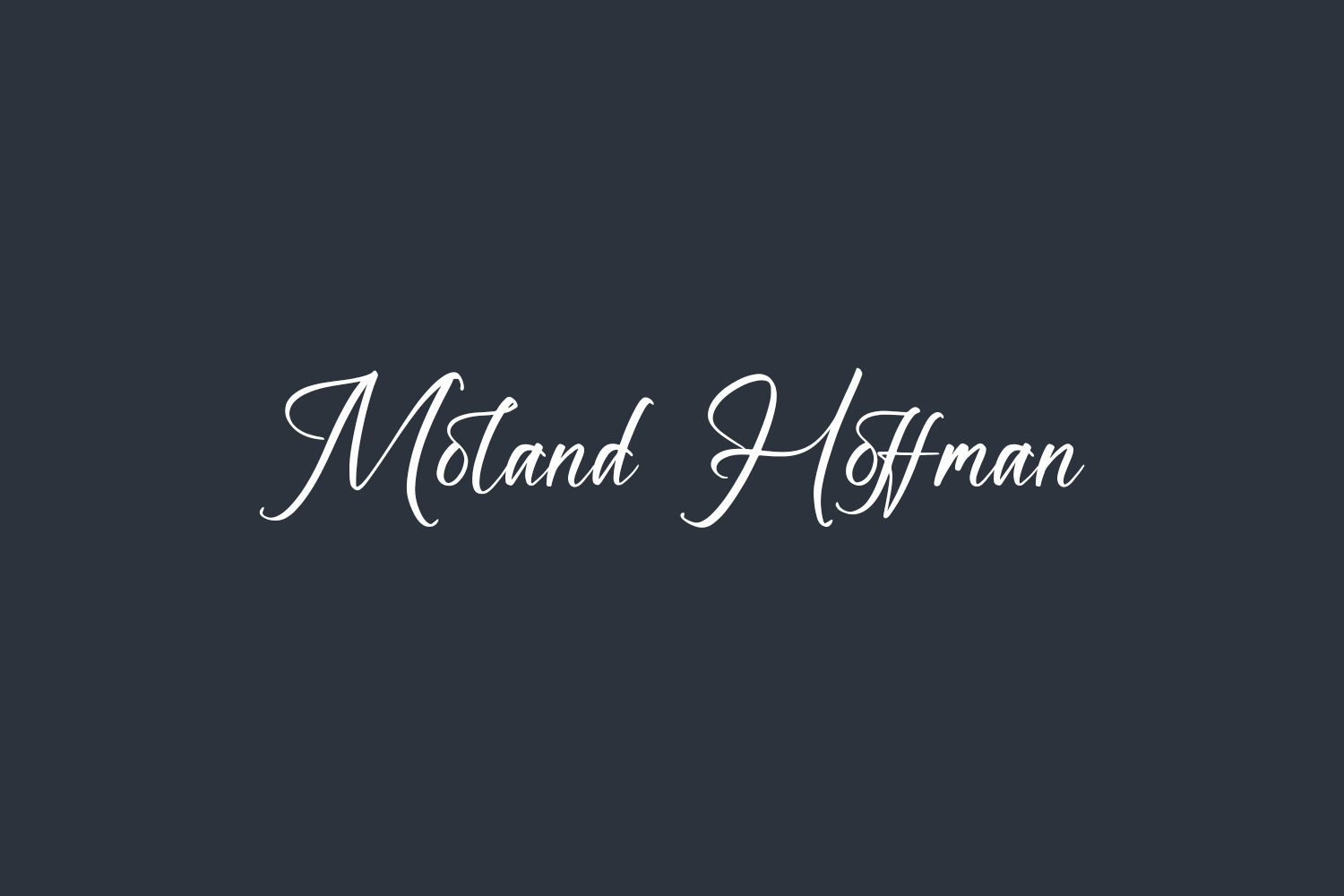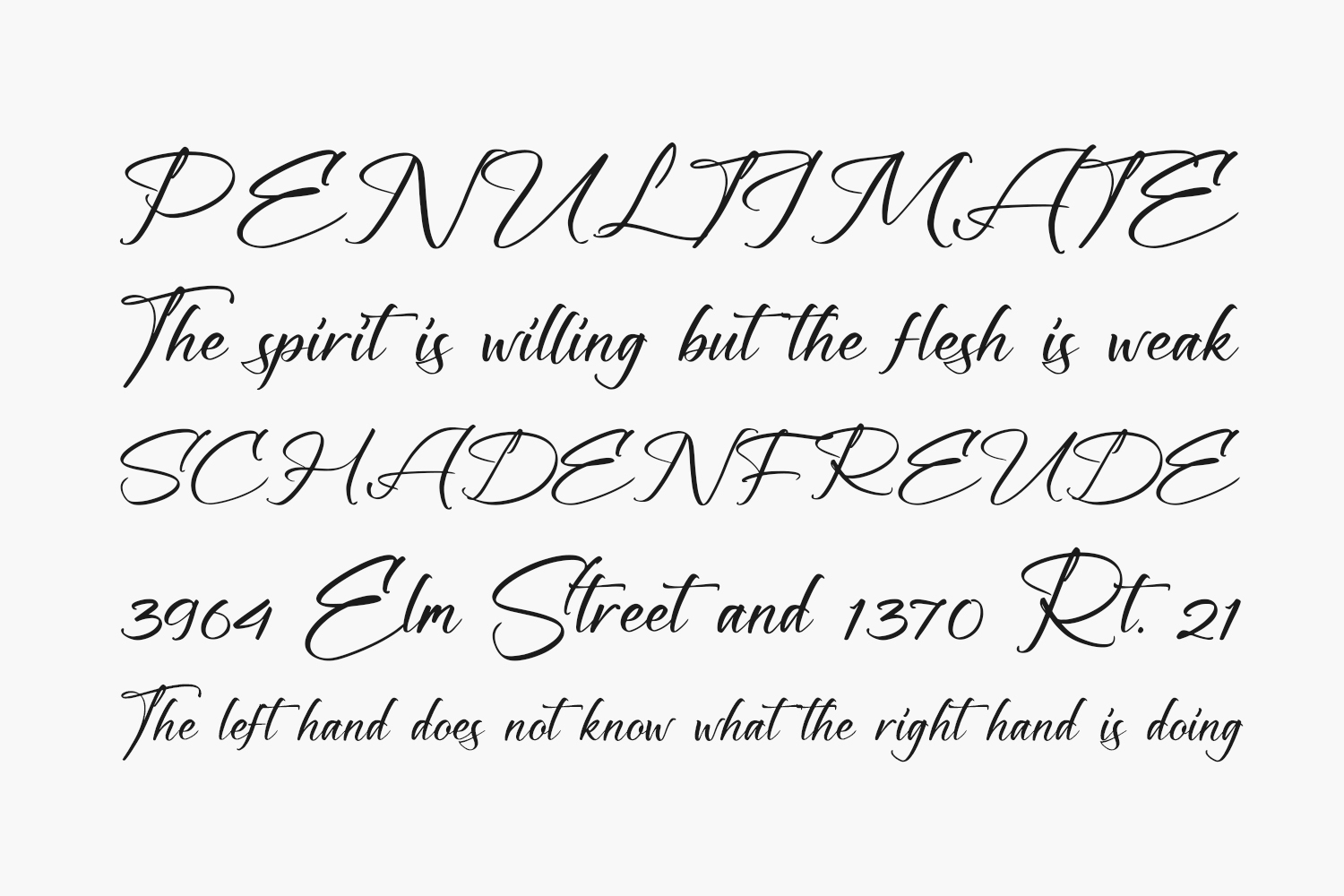
Moland Hoffman Free Font stands out as a chic and exquisite script font, perfectly tailored for a diverse range of creative ventures. Whether you’re working on logos, branding projects, homeware designs, product packaging, mugs, quotes, posters, shopping bags, t-shirts, book covers, or any other delightful project, this font offers an impeccable script style to elevate your designs. Embrace the trendiness and beauty of Moland Hoffman to add a touch of sophistication to all your creative endeavors. Moland Hoffman Free Font was designed by Letterena Studios and is free for personal use only. Please purchase the full version for commercial use.
Designed by Letterena Studios